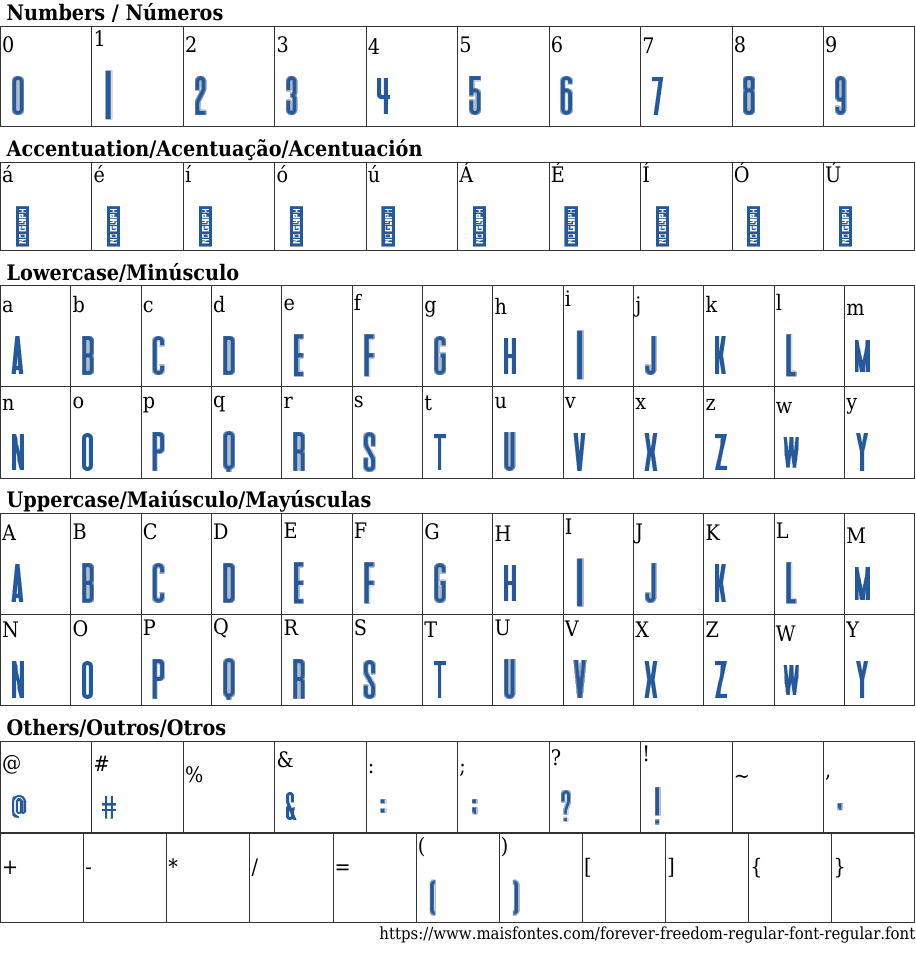
Forever Freedom Font Free Download - This modern font family includes four unique styles perfect for all your. The regular, italic, and outline. Forever freedom is a bold and striking modern font with four fantastic styles that combine perfectly. Download the bold and striking forever freedom font!
Forever freedom is a bold and striking modern font with four fantastic styles that combine perfectly. The regular, italic, and outline. This modern font family includes four unique styles perfect for all your. Download the bold and striking forever freedom font!
This modern font family includes four unique styles perfect for all your. The regular, italic, and outline. Forever freedom is a bold and striking modern font with four fantastic styles that combine perfectly. Download the bold and striking forever freedom font!
This modern font family includes four unique styles perfect for all your. Download the bold and striking forever freedom font! Forever freedom is a bold and striking modern font with four fantastic styles that combine perfectly. The regular, italic, and outline.
Download the bold and striking forever freedom font! Forever freedom is a bold and striking modern font with four fantastic styles that combine perfectly. The regular, italic, and outline. This modern font family includes four unique styles perfect for all your.
The regular, italic, and outline. This modern font family includes four unique styles perfect for all your. Download the bold and striking forever freedom font! Forever freedom is a bold and striking modern font with four fantastic styles that combine perfectly.
The regular, italic, and outline. This modern font family includes four unique styles perfect for all your. Forever freedom is a bold and striking modern font with four fantastic styles that combine perfectly. Download the bold and striking forever freedom font!
Download the bold and striking forever freedom font! The regular, italic, and outline. This modern font family includes four unique styles perfect for all your. Forever freedom is a bold and striking modern font with four fantastic styles that combine perfectly.
The regular, italic, and outline. Forever freedom is a bold and striking modern font with four fantastic styles that combine perfectly. This modern font family includes four unique styles perfect for all your. Download the bold and striking forever freedom font!
This modern font family includes four unique styles perfect for all your. Forever freedom is a bold and striking modern font with four fantastic styles that combine perfectly. Download the bold and striking forever freedom font! The regular, italic, and outline.
The regular, italic, and outline. This modern font family includes four unique styles perfect for all your. Download the bold and striking forever freedom font! Forever freedom is a bold and striking modern font with four fantastic styles that combine perfectly.
The Regular, Italic, And Outline.
Download the bold and striking forever freedom font! This modern font family includes four unique styles perfect for all your. Forever freedom is a bold and striking modern font with four fantastic styles that combine perfectly.